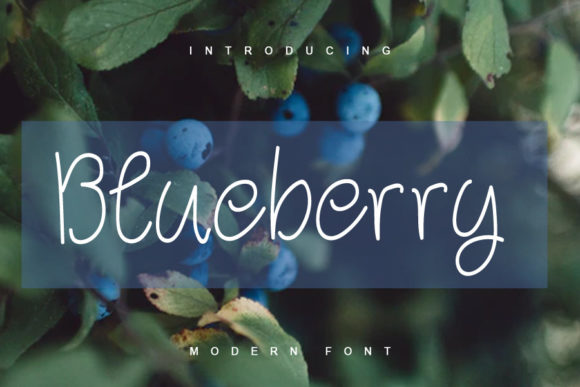
The Sweet Charm of Blueberry Font: A Designer’s Delight
I still remember the time I was working on a whimsical craft project, pouring my heart and soul into creating the perfect invitation. The design was almost complete, but something was missing – the right font. I scrolled through page after page of Google Fonts, but nothing seemed quite right. That’s when I stumbled upon Blueberry, a thin lettered script font that seemed to dance along the baseline. It was love at first sight! 💕
An Honest Review of Blueberry Font
What I Love About Blueberry ✨
• 💫 Charming, playful characters that add a touch of magic to any design
• ✅ Thin lettering that creates a beautiful, elegant look
• 🎉 Excellent for creative projects, such as invitations, crafts, and social media graphics
• 👍 Highly legible, even at smaller font sizes
• ⚠️ Limited use for formal or professional projects, as it may come across as too playful
• 🤔 Some characters may not work well in all languages or scripts
The Backstory of Blueberry Font
Blueberry was designed by a team of creatives who wanted to create a font that would evoke the feeling of a warm summer day. Inspired by the sweetness of blueberries and the playfulness of handwritten scripts, they crafted a font that would bring joy and whimsy to any design.
Q: What is the best use for Blueberry font?
A: Blueberry is perfect for creative projects, such as invitations, crafts, and social media graphics. It’s also great for adding a touch of elegance to blog posts and website headers.
Q: Is Blueberry font suitable for formal projects?
A: While Blueberry is a beautiful font, it may not be the best choice for formal or professional projects, as it may come across as too playful.